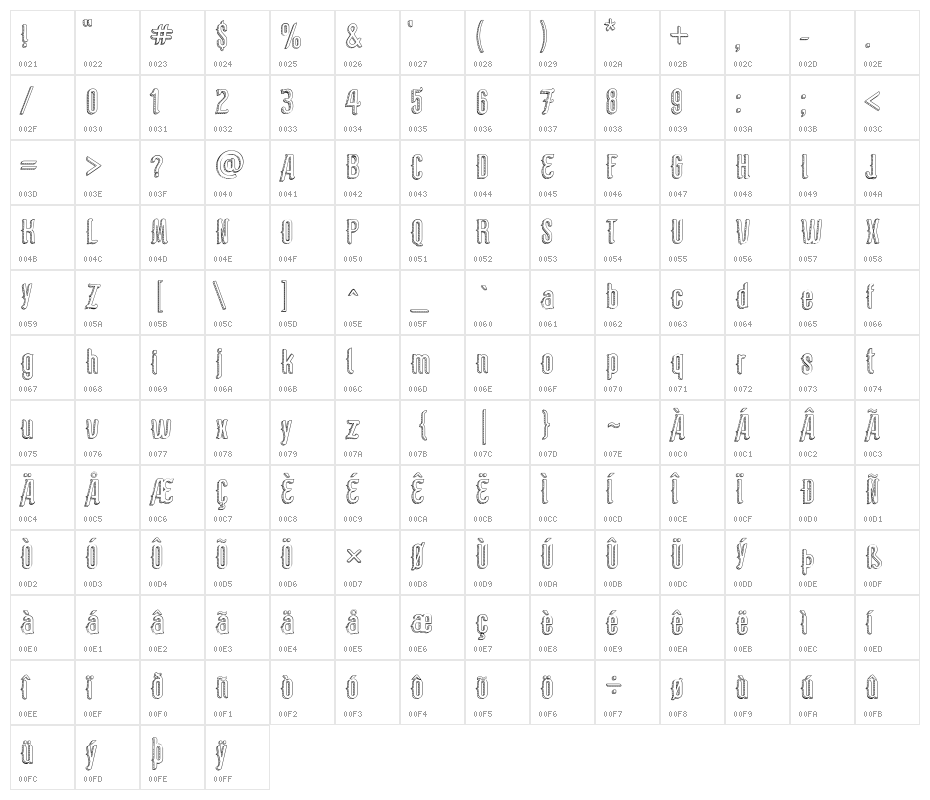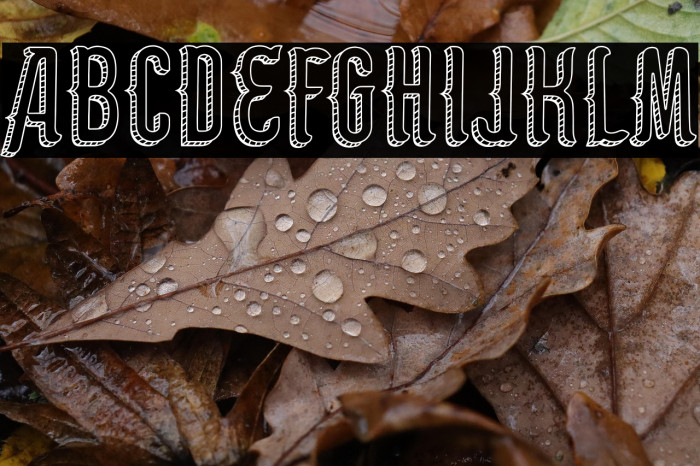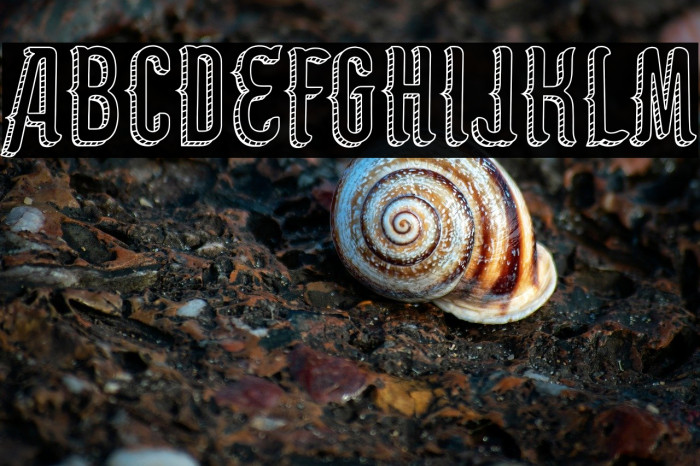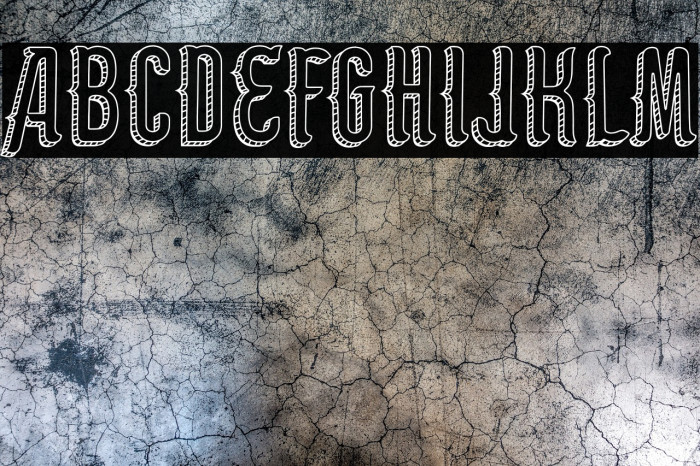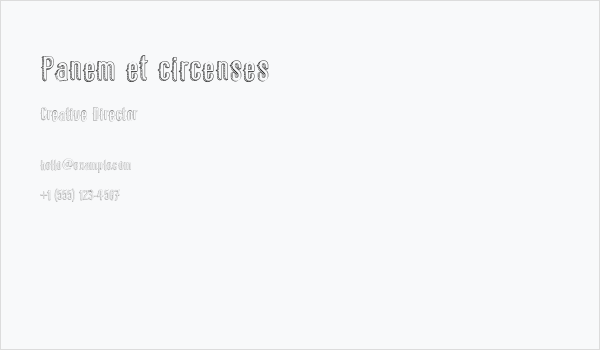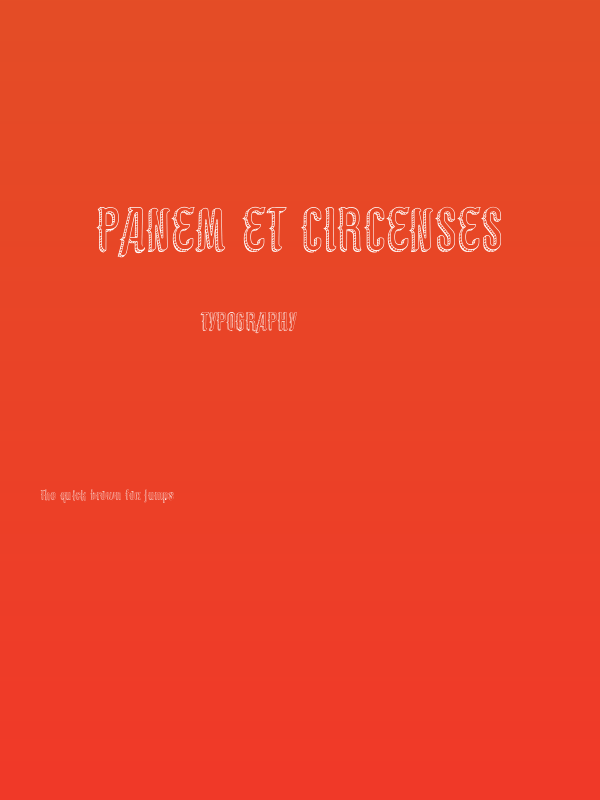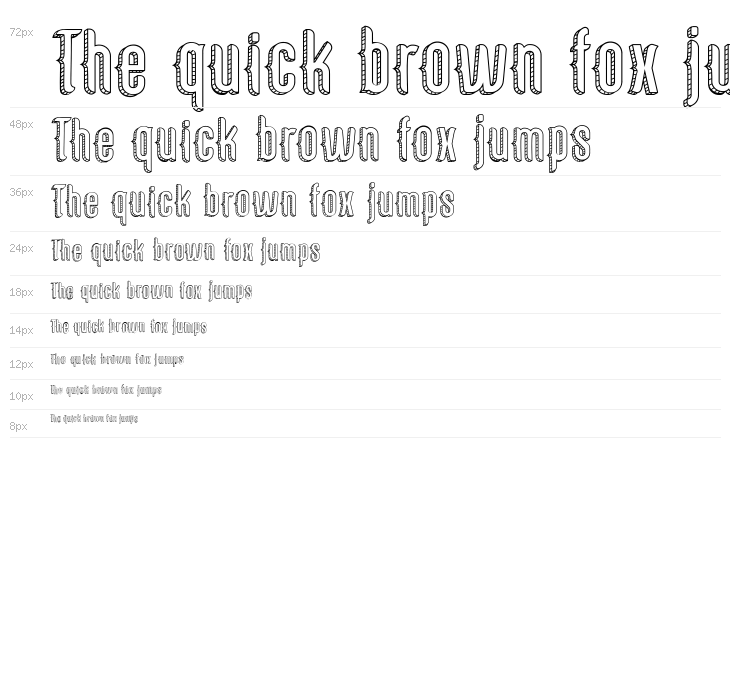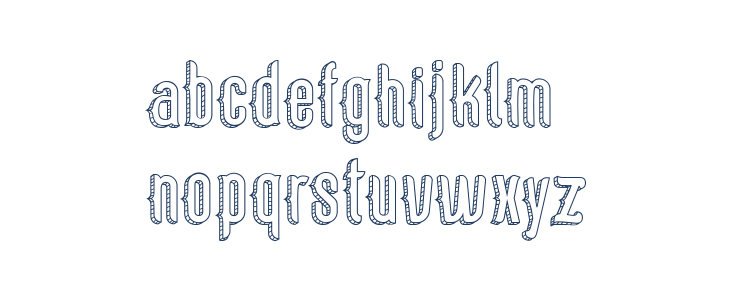
Panem et circenses Font
Panem et circenses Description
This font features a bold, decorative style with a three-dimensional effect created by shadowed lines. Each character is outlined with a thick border, and the interior is filled with diagonal lines that give a sense of depth and texture. The uppercase and lowercase letters maintain a consistent style, with the uppercase being slightly more prominent. Numbers and special characters follow the same design, ensuring uniformity across all elements. The font's playful and eye-catching appearance makes it suitable for creative and informal applications.